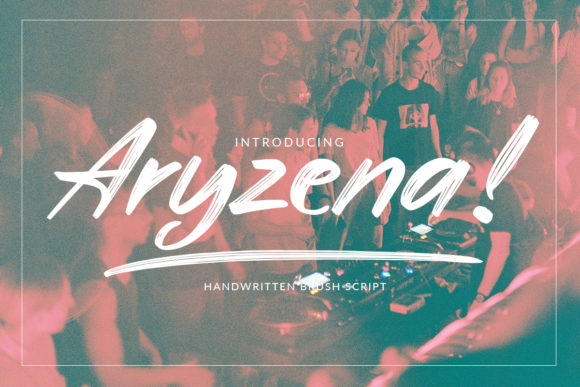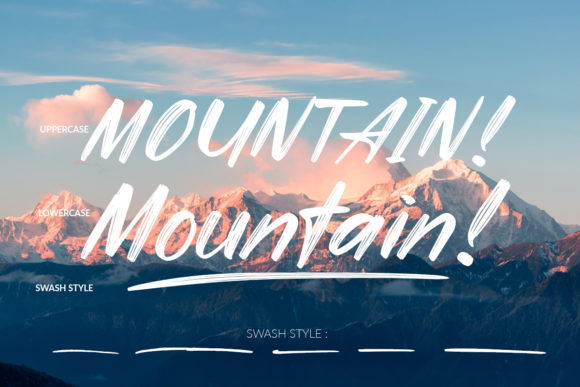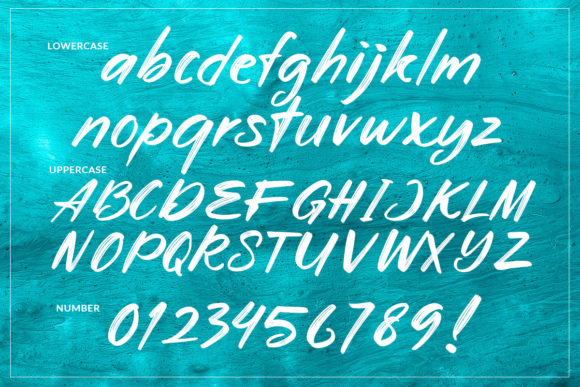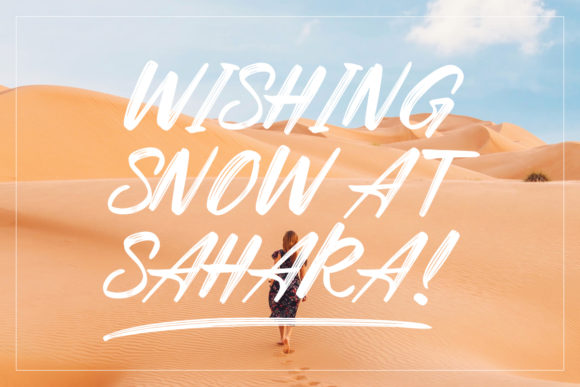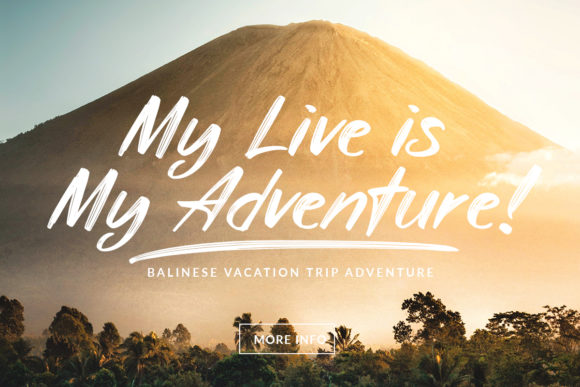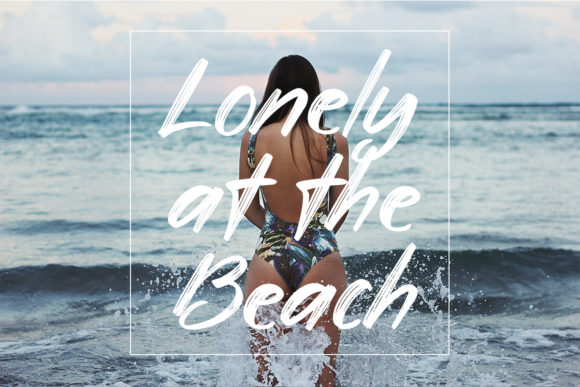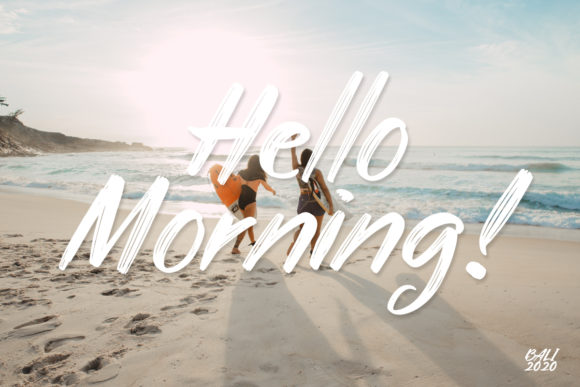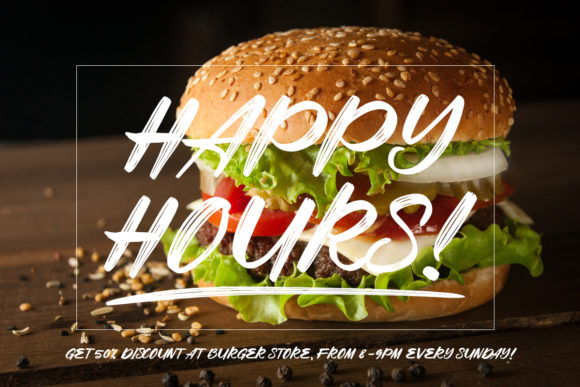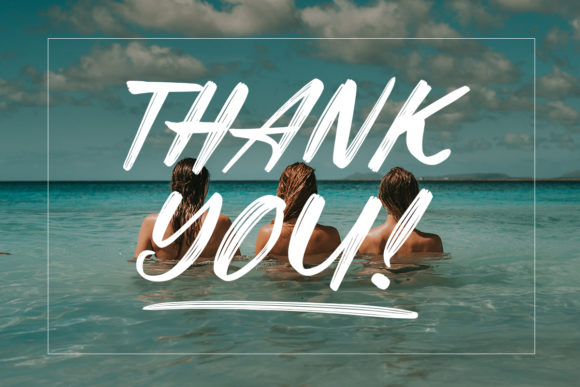
Aryzena Font
About Aryzena Font
Aryzena is handwritten script textured brush font.
This playful font  will make your designs more attractive and stylish. It is perfect for any projects such as logos, posters, headlines and much more.